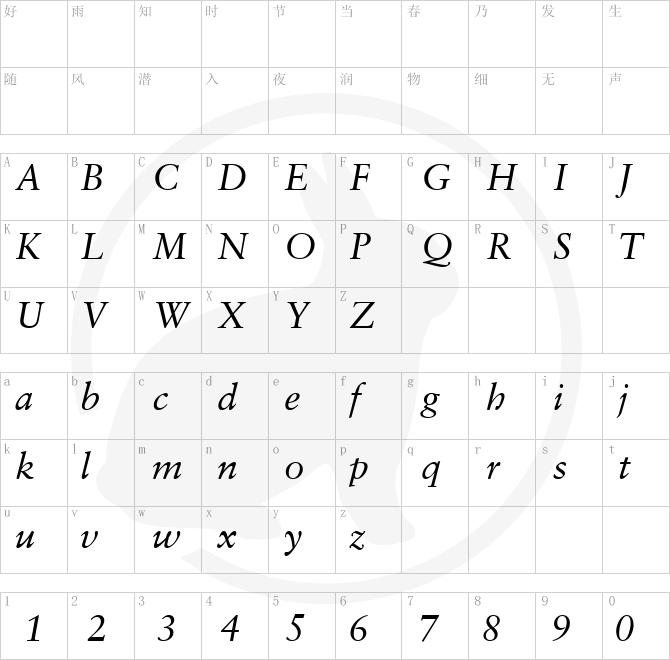
- Font Name:Sabon LT
Sabon-LT-Italic.ttf is a very beautiful artistic font, Sabon-LT-Italic.ttf is widely used in the design and printing of various books and pictures,Sabon-LT-Italic.ttf has a strong visual impact,Sabon-LT-Italic.ttf is a commonly used font in newspapers, magazines and books, and is used in posters, e-commerce Poster design, store design, logo design, font design and other fields.Sabon-LT-Italic.